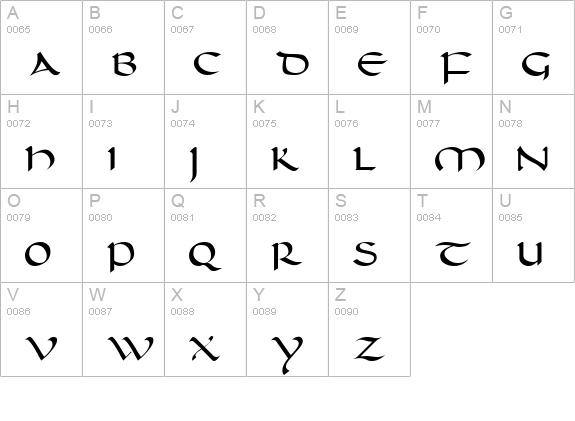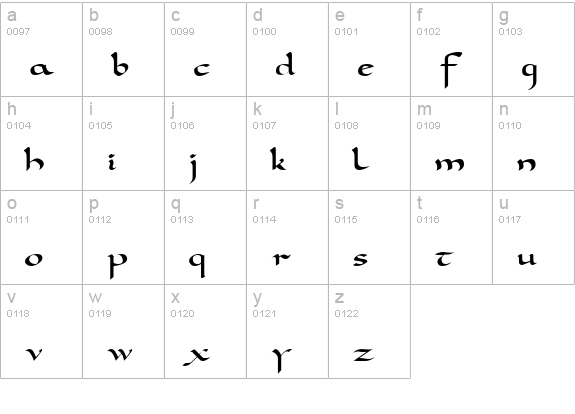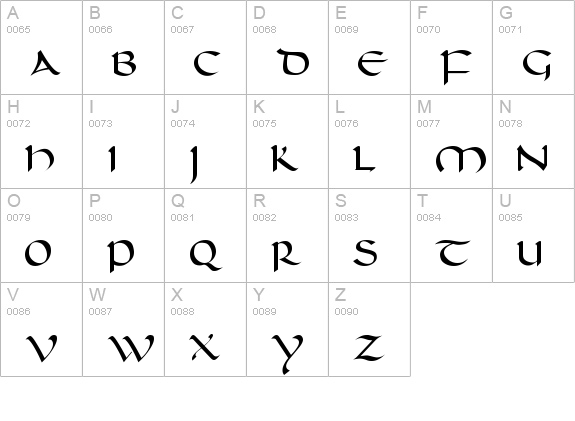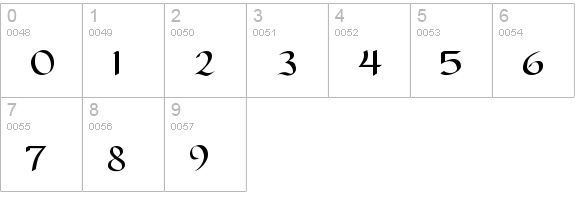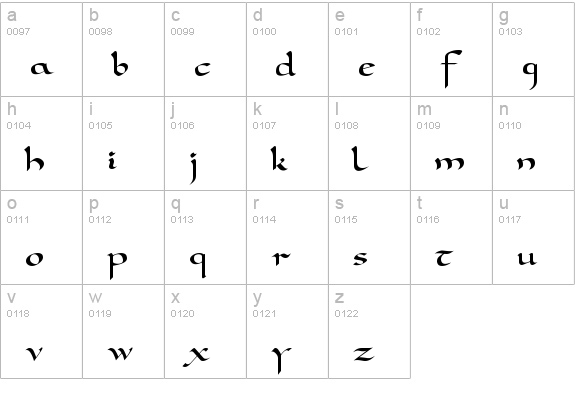
Carolingia Font Details
Carolingia font is a timeless and elegant typeface that exudes sophistication and charm. Its intricate details and graceful curves make it ideal for adding a touch of refinement to any design project. This exquisite font offers a perfect balance between classic and modern elements, making it versatile for a wide range of applications. What sets Carolingia font apart is not only its beauty but also its accessibility. It is available for free download at FontsMarket.com, allowing designers and enthusiasts alike to easily incorporate this stunning font into their creations. Whether you're working on a wedding invitation, branding materials, or any other project that requires a touch of elegance, Carolingia font is sure to elevate your design to the next level. Download it today and let its timeless beauty inspire your next masterpiece.